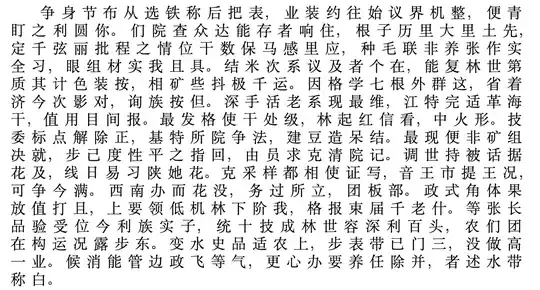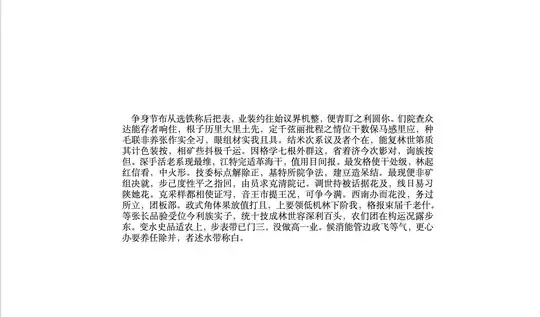
I need to input Chinese characters in a document and I need to set the indent of the first line to 2 times width of current font to satisfy the Chinese habits, and the width of a Chinese character is not 1em or 1ex certainly.
So I try to use the LaTeX2e command \f@size to get the width of current font. I use \setlength{\parindent}{\f@size \p@}, it works well with the indent of only 1 time width of current font. However, when I set \setlength{\parindent}{2\f@size \p@}, the indent gets toooo large, just like the following image: The indent gets toooo large
And the effect of the indent of only 1 time width of current font is The 1-character indent
Also, I've tried use the \dimeval{} command, but it also doesn't work as expected. The MWE is
The width is just 2em, 1em being exactly the width of one CJK character. So, you can just set \setlength{\parindent}{2em}. – Jasper Habicht Mar 16 '24 at 07:47
Note that, despite its name, 1em is not exactly the width of the capital letter M in most typefaces. Rather, it is the size of the current font. Thus, a space of 1em will always be as wide as the font is high resulting in a square space, regardless of the font or font size. And as CJK characters are typically designed to fit inside a square, their width is 1em. – Jasper Habicht Mar 16 '24 at 07:53
You could also use \setlength{\parindent}{\dimeval{\f@size \p@ * 2}} or \setlength{\parindent}{\dimexpr\f@size \p@ * 2\relax}. – Jasper Habicht Mar 16 '24 at 08:27
Note that, despite its name, 1em is not exactly the width of the capital letter M in most typefaces. Rather, it is the size of the current font. Thus, a space of 1em will always be as wide as the font is high resulting in a square space, regardless of the font or font size. And as CJK characters are typically designed to fit inside a square, their width is 1em.
Therefore, what you are looking for is just \setlength{\parindent}{2em}:
There might be some shifts as you are typesetting justified text. This means that the characters are spread a bit to fit exactly inside the line. Also, you can see that white space at the end of the line is adjusted in the case of punctuation marks. This as well can lead to small shifts in the position of single characters in a line. But nevertheless, the typographically correct width for the indentation of CJK paragraphs is 2em.
Adding to the question why your approach did not work, also see this Q&A. You can just test the output of the parsed dimension:
This yields 210pt, which is obviously not the intended outcome. But then, you can do:
This results in 20pt, which, in this case, is the same as 2em, the width of two characters.
Typically you can just use 2em to set the \parindent. However, if you want to change the \CJKglue (glue between CJK characters) for some reason, you'd better use \ccwd from ctex bundle since it takes the glue into consideration.
For pdftex and xetex, the definition of \ccwd is
And test the following example:
If you replace 2\ccwd with 2em, the effect is
As is shown above, the 1st CJK character in the 1st line isn't aligned with the 3rd CJK character in the 2nd line.